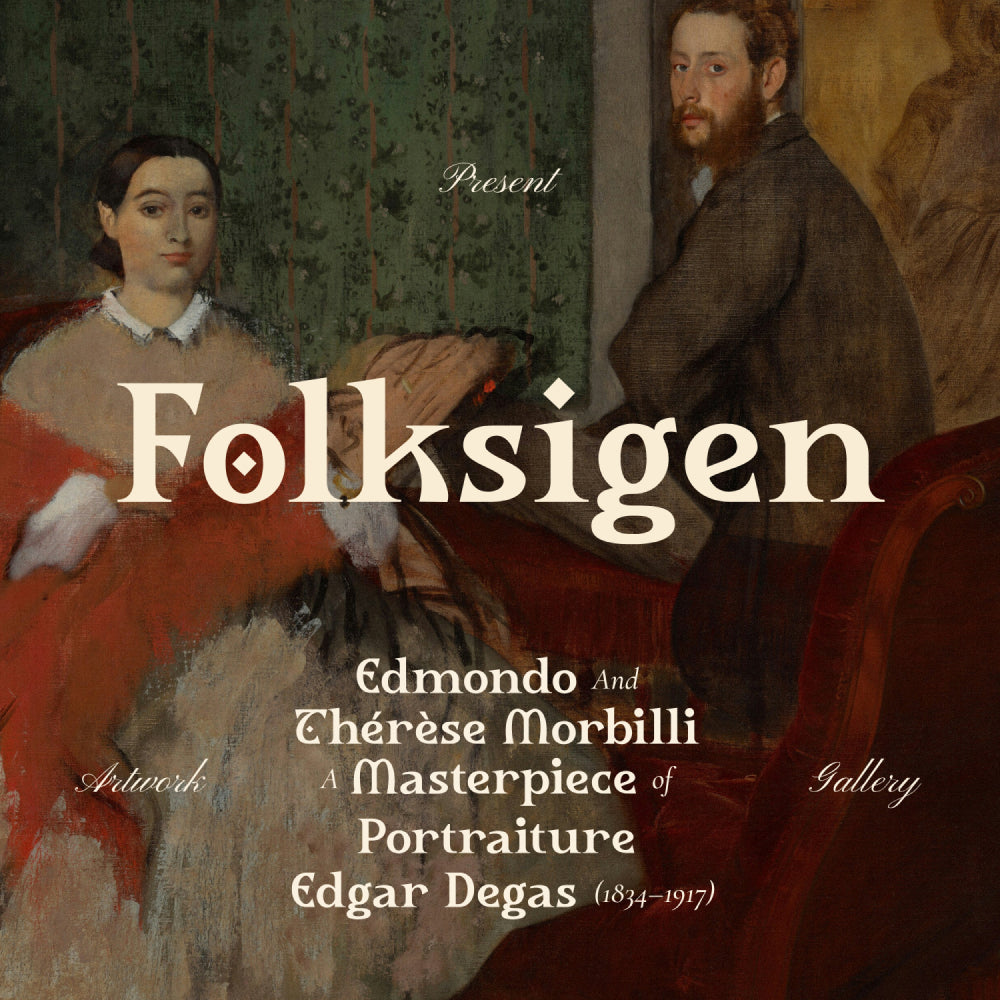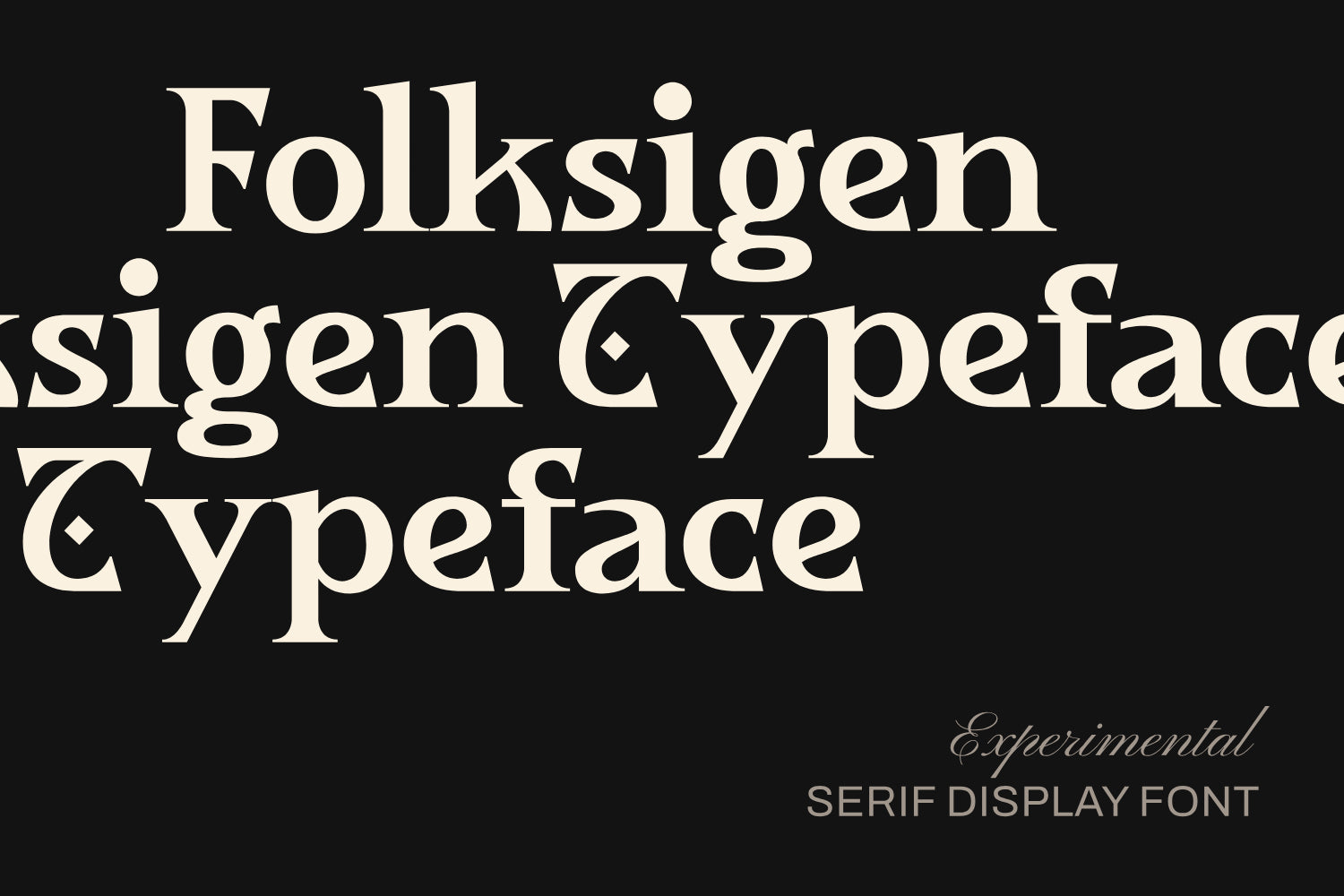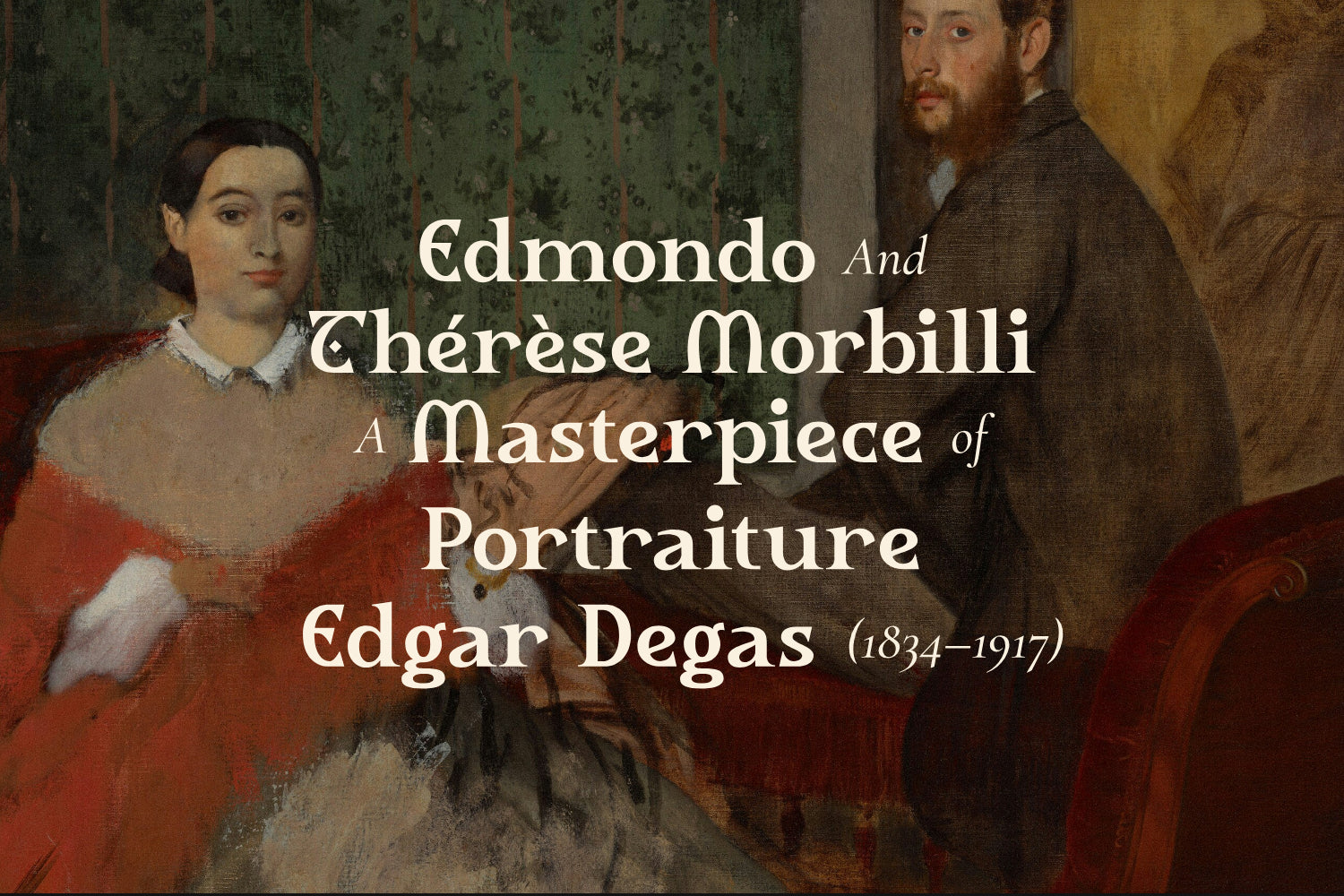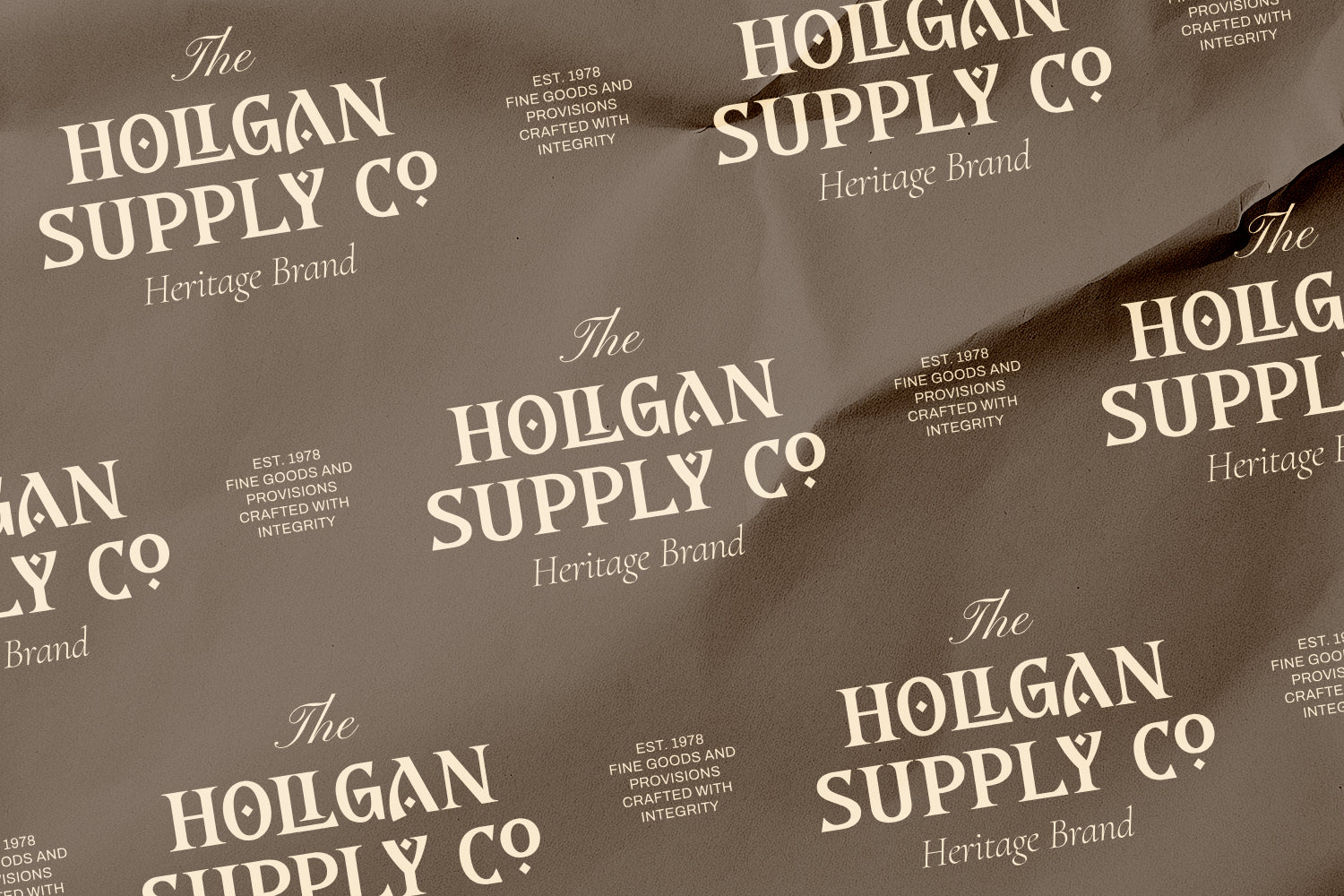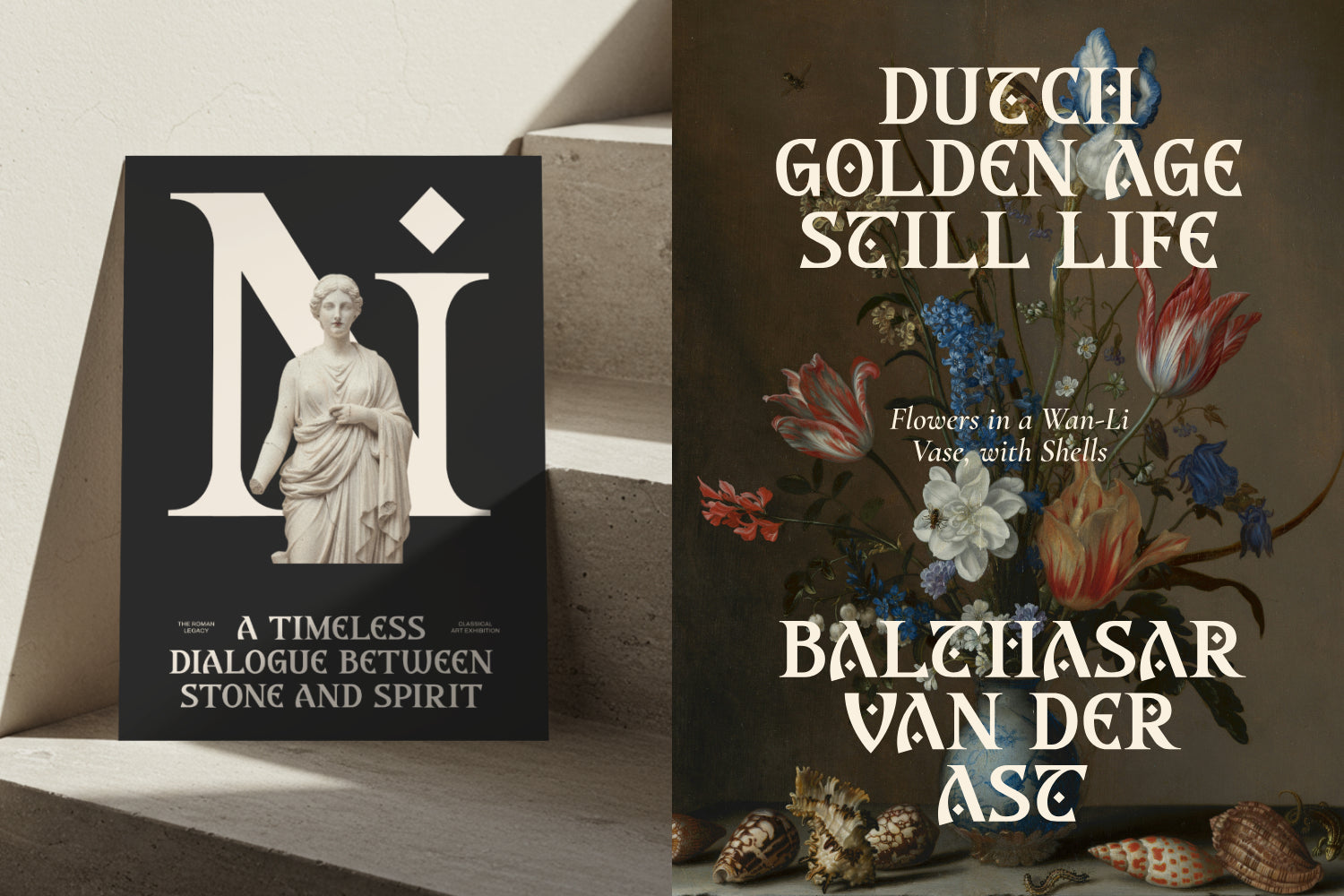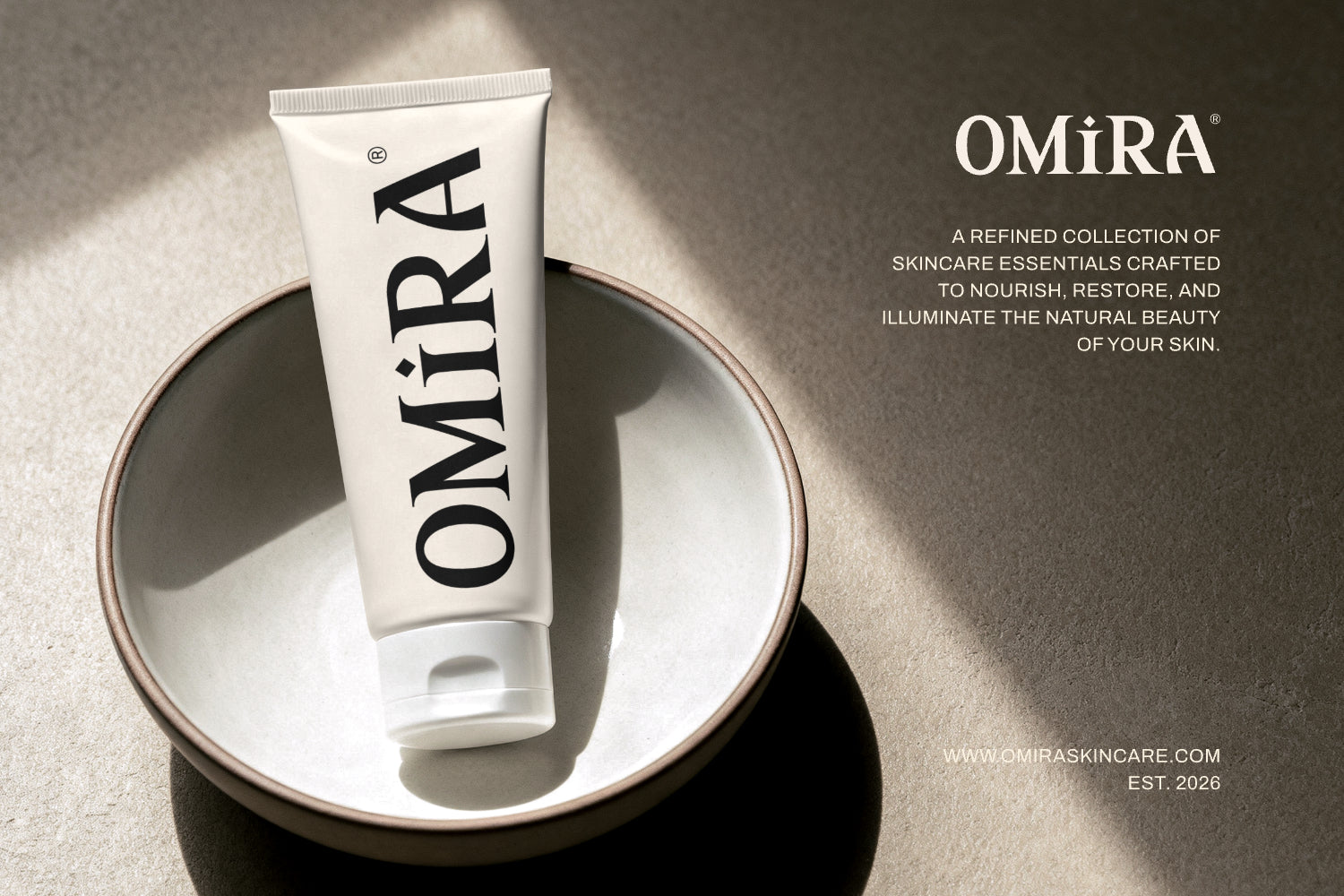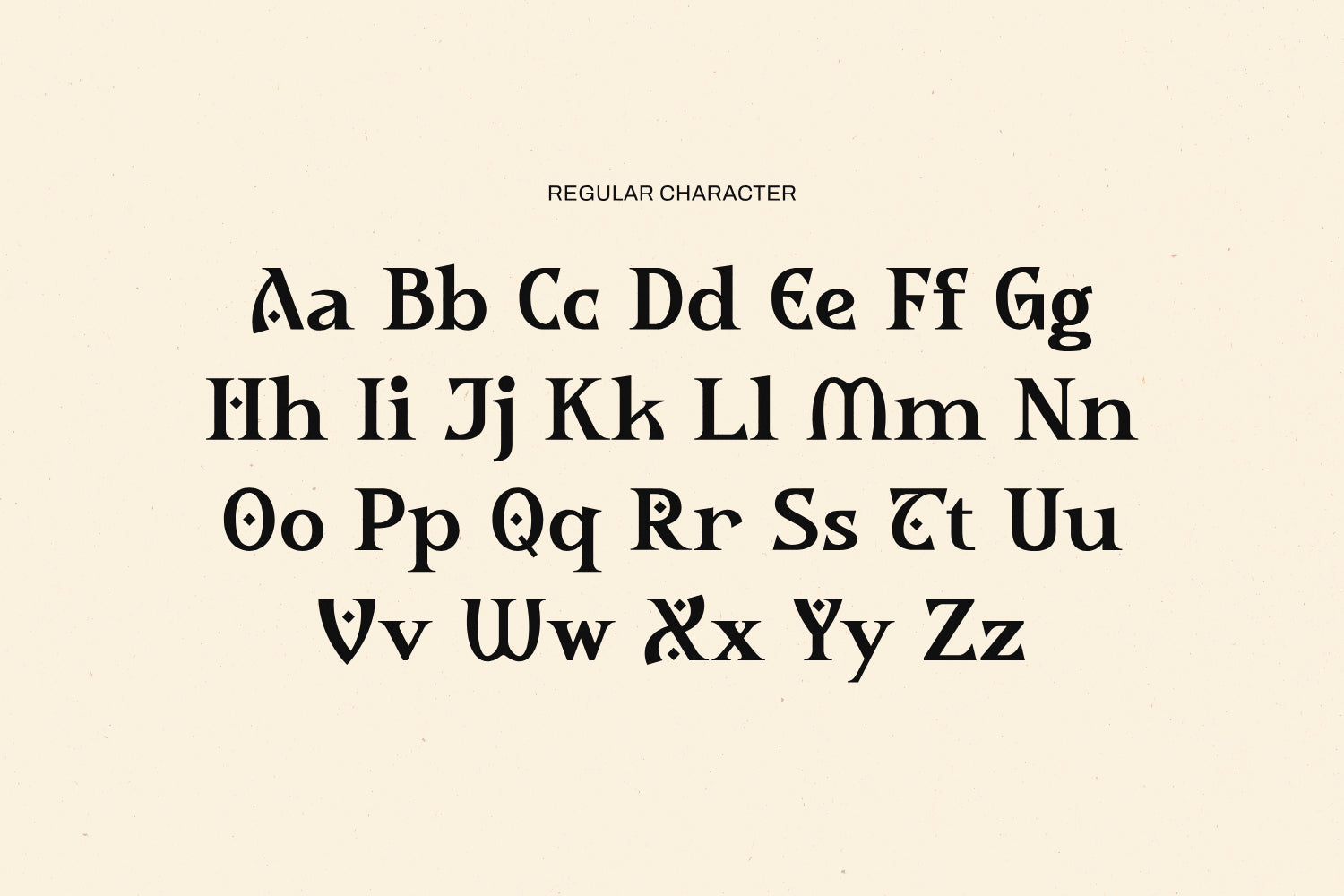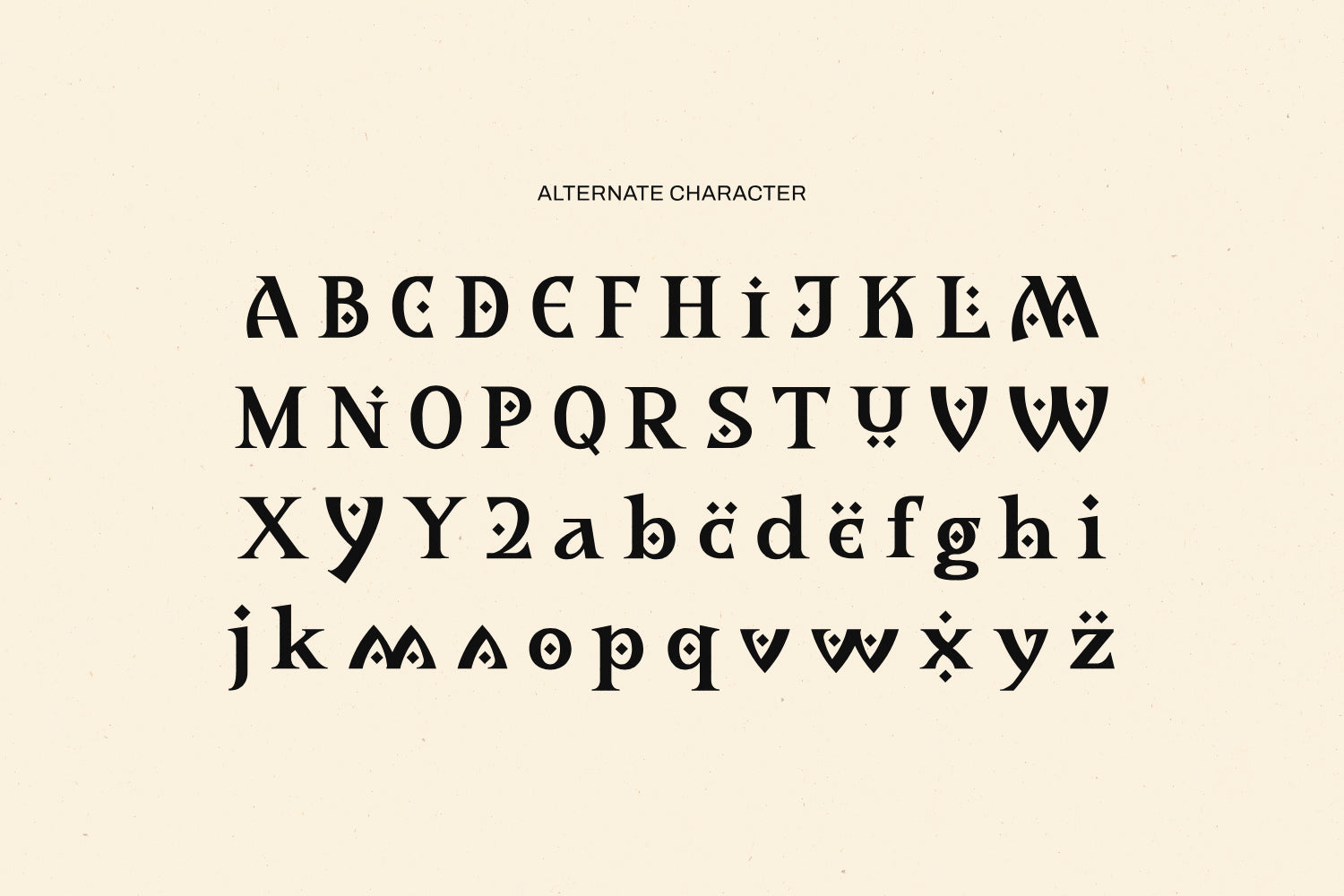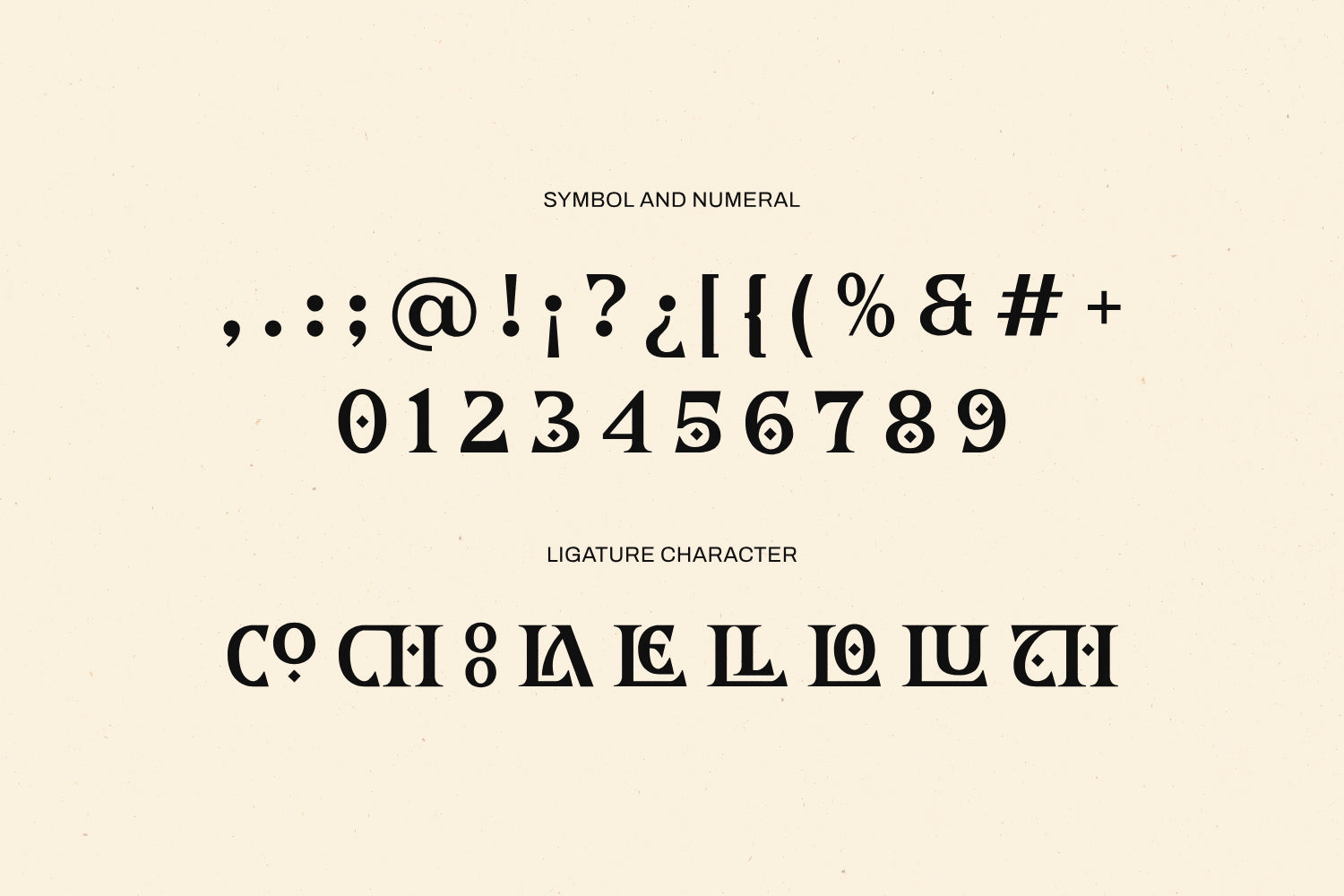
Folksigen Typeface
Folksigen is a versatile mixed-style serif typeface that blends upright roman forms with flowing italic alternates in a single font. Characterized by distinctive geometric diamond accents, sharp serifs, and artistic alternate glyphs, it brings an intriguing balance of historical folk charm and contemporary display aesthetics.
- Ligatures and alternate characters
Folksigen is a mixed-style serif typeface combining upright roman forms with flowing italic alternates, featuring geometric diamond accents and sharp serifs. It includes OTF, TTF, and WOFF formats with ligatures, alternate characters, numerals, punctuation, symbols, and multilingual support.